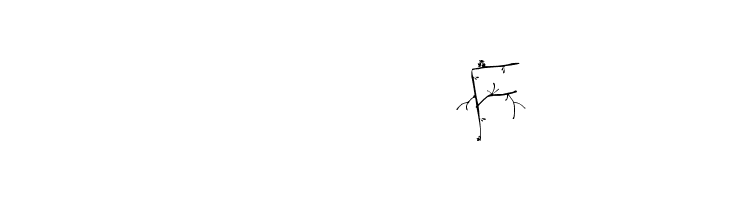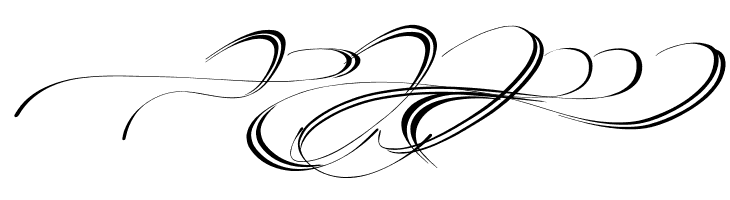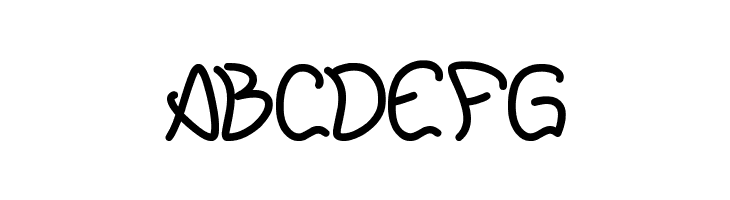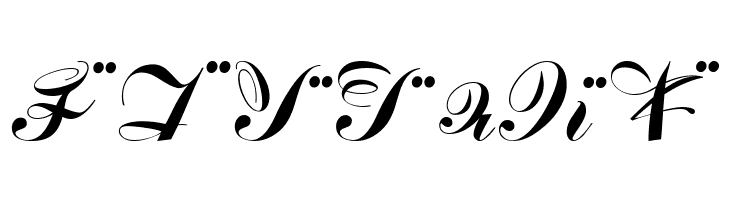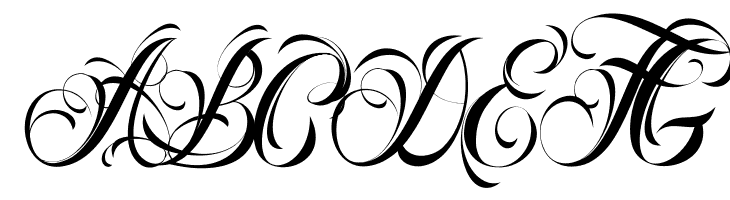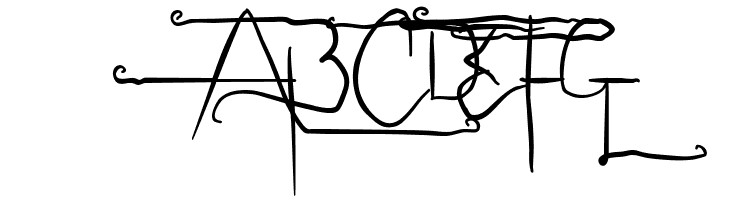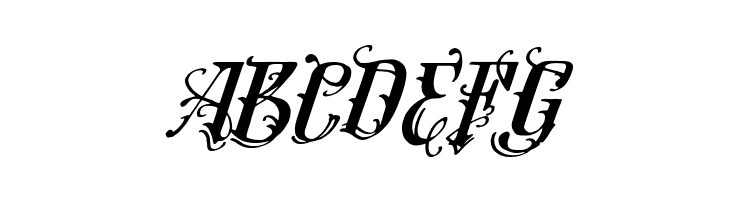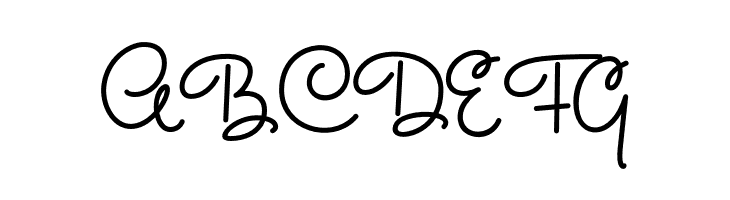
A decorative font resembling tree branches with leaves, offering a natural and whimsical style.
An elegant script font with intricate swashes and flourishes.
A playful, handwritten font with bold, rounded characters and a youthful flair.
An elegant and decorative script font with intricate swirls and flourishes.
An elegant script font with intricate swashes and a calligraphic style.
An artistic, decorative font with intricate loops and flourishes.
An ornate, italicized decorative font with elaborate swirls and flourishes.
A playful and elegant script font with a flowing, cursive design.